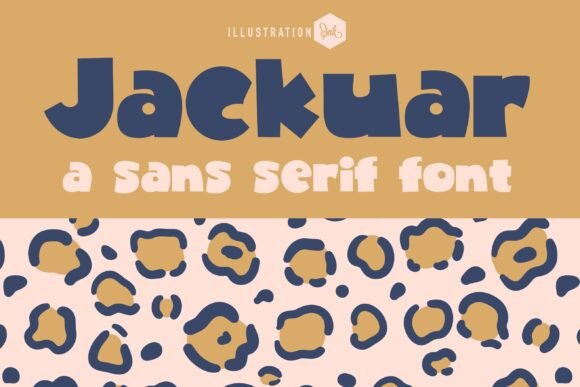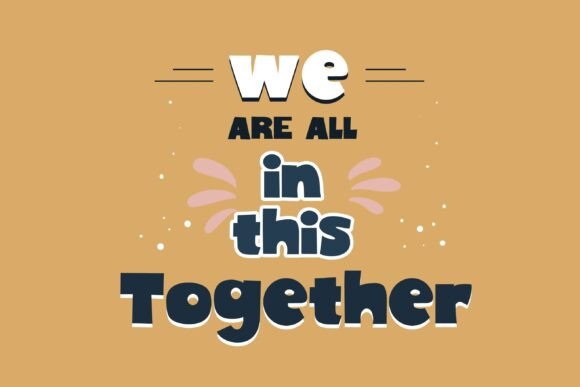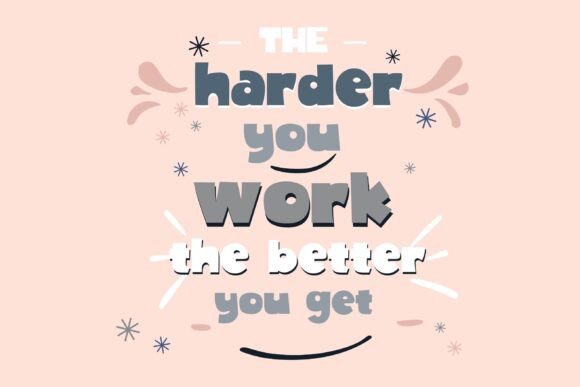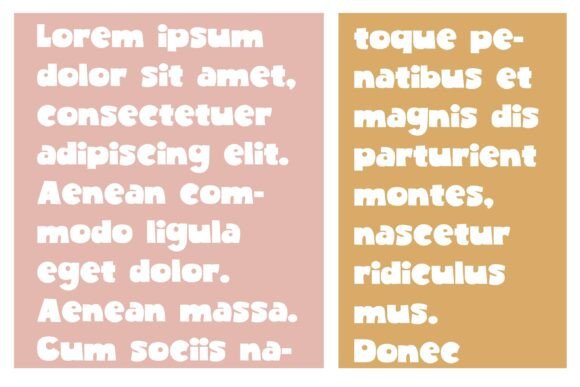
Jackuar Font
About the Jackuar Font
Meet Jackuar Font, a stunning font that brings a touch of elegance and professionalism to any design. This hand-crafted font is a whimsical sans serif with chunky, thick, whimsical lettering.
Jackuar’s playful energy makes it ideal for headlines, short text blocks on posters, branding elements requiring a quirky touch, and packaging for products targeting a younger demographic. It’s less suitable for body text or UI elements where readability is paramount; its chunky forms can hinder legibility in longer passages.
Paired effectively with a clean sans-serif like Open Sans for body copy, or a more geometric sans-serif such as Futura for a modern contrast, Jackuar maintains its visual appeal without overwhelming the design. Consider a delicate script font like Great Vibes for added flourish in invitations or branding materials where a touch of elegance is desired.
The overall personality of Jackuar is undeniably bold and friendly, exuding a youthful and approachable vibe. It’s perfect for brands that want to communicate approachability, fun, and creativity.
Jackuar Font Usage Examples
Jackuar Font Example